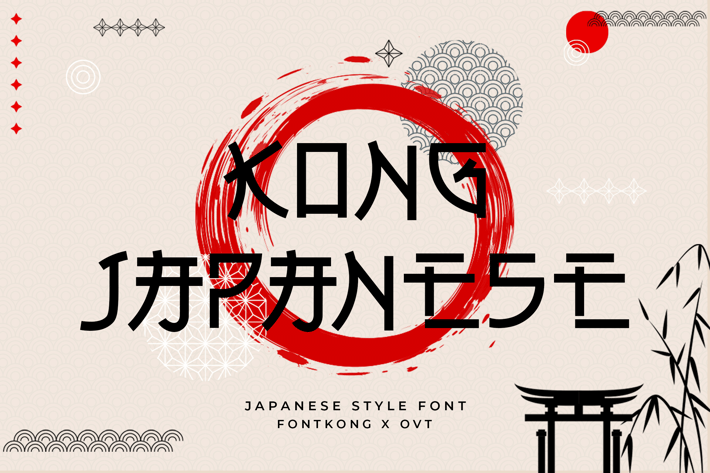
Kong Japanese - Japanese Style Typeface
Introducing "Kong Japanese," a Japanese style typeface designed to bring elegance and sophistication to your designs. This typeface blends traditional Japanese calligraphy with modern design elements, offering a balance of beauty and readability.
Ideal for creating impactful headlines, elegant logos, stylish branding, and refined editorial layouts, Font provides versatility across various applications. Its intricate strokes and distinct characters make it perfect for projects that require a touch of cultural elegance and artistic flair.
Kong Japanese includes a complete set of uppercase and lowercase letters, numerals, punctuation marks, and special characters, ensuring comprehensive language support and usability for global design needs.
Elevate your designs with Kong Japanese, a typeface that embodies the essence of Japanese typography and craftsmanship.
Introducing "Kong Japanese," a Japanese style typeface designed to bring elegance and sophistication to your designs. This typeface blends traditional Japanese calligraphy with modern design elements, offering a balance of beauty and readability.
Ideal for creating impactful headlines, elegant logos, stylish branding, and refined editorial layouts, Font provides versatility across various applications. Its intricate strokes and distinct characters make it perfect for projects that require a touch of cultural elegance and artistic flair.
Kong Japanese includes a complete set of uppercase and lowercase letters, numerals, punctuation marks, and special characters, ensuring comprehensive language support and usability for global design needs.
Elevate your designs with Kong Japanese, a typeface that embodies the essence of Japanese typography and craftsmanship.